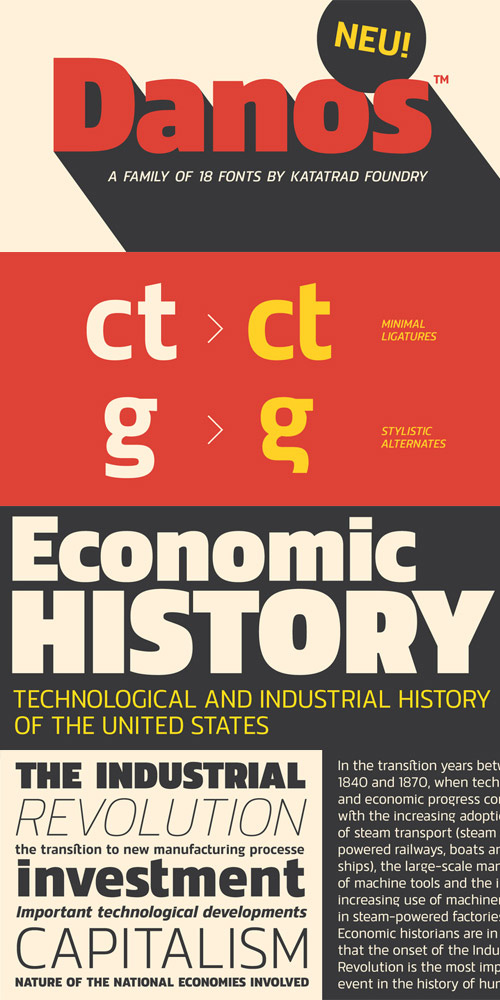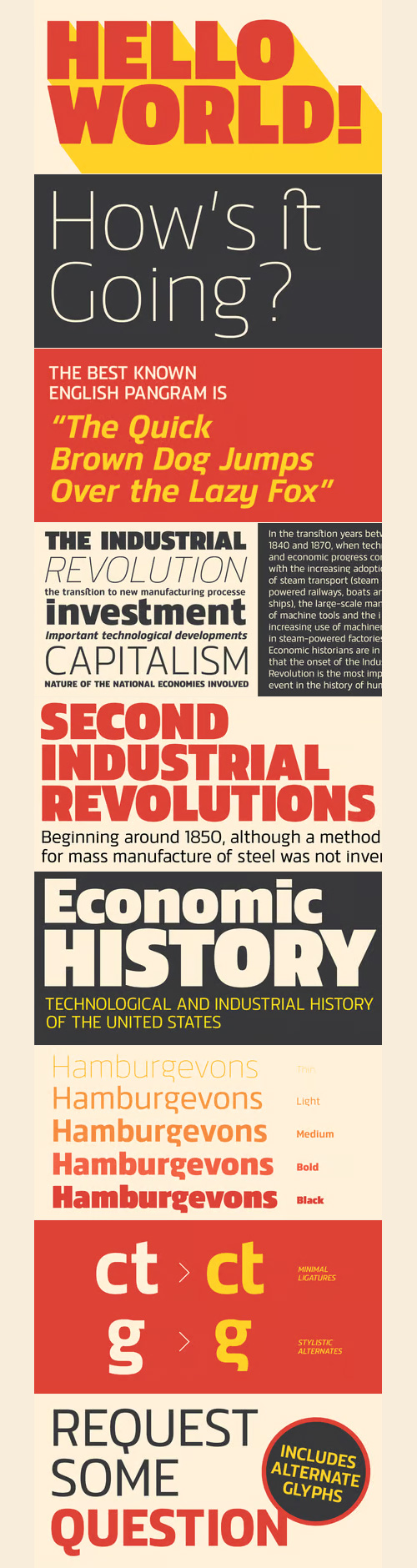
- Danos is a flexible family of modern sans serif and characterized by some humanistic. It has his own unique style in expressed perfect condensed forms, inspired by the classic industrial grotesque and geometric typefaces. Danos is an ideal font family for display, text, print, user interfaces, mobile devices, branding, signage, and especially web design creation, with a set of minimal ligatures and alternative characters for your design in any layout. The family has 18 weights ranging from Thin to Black and their italic.